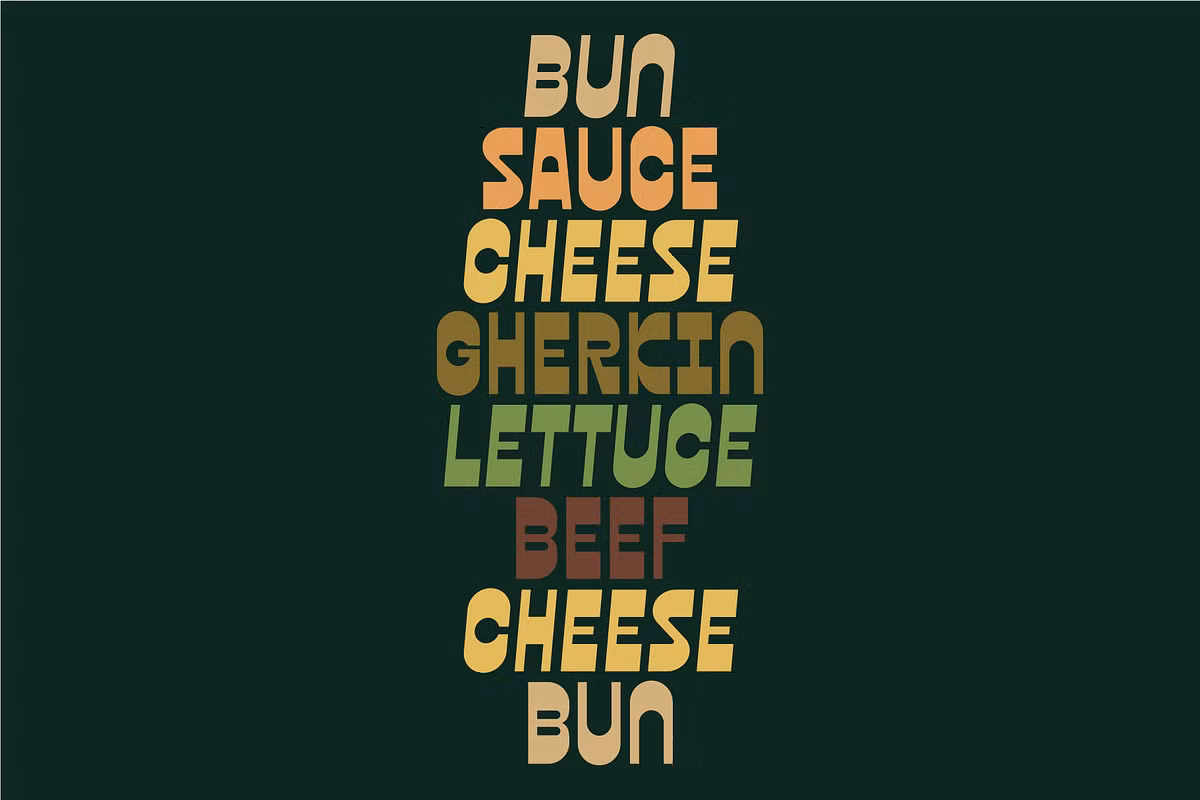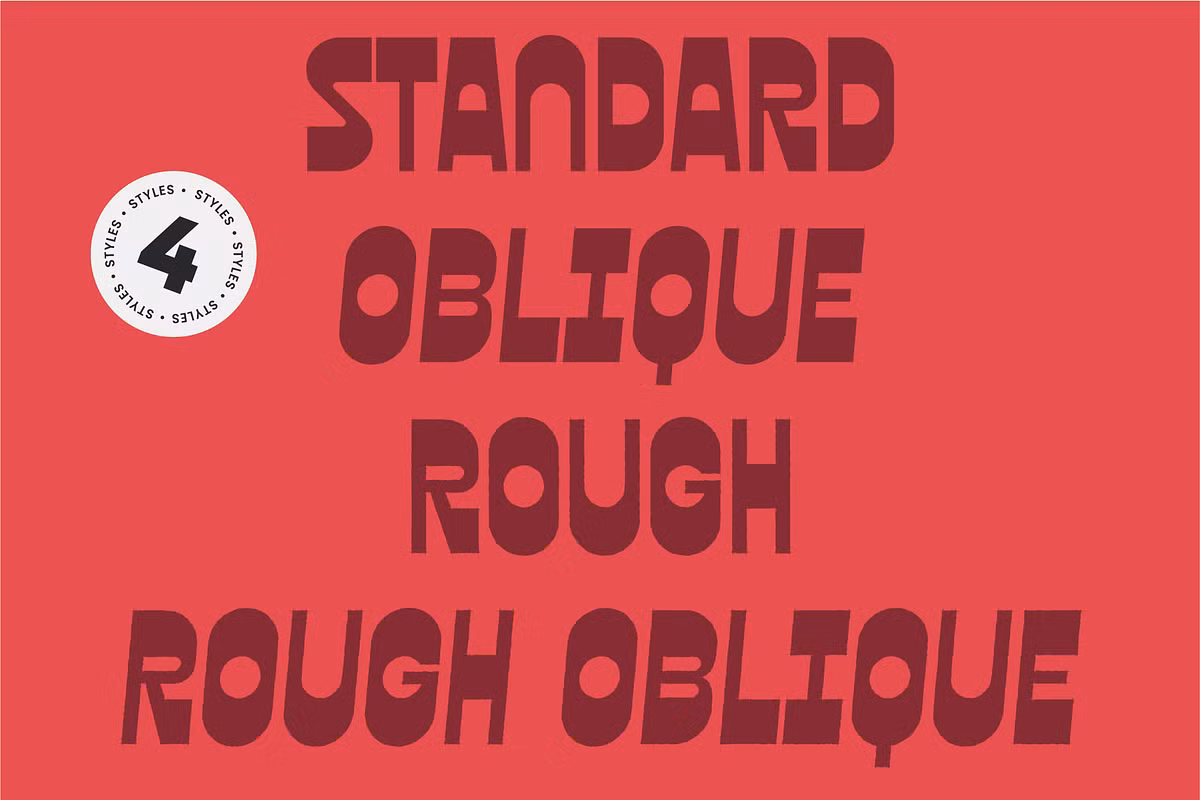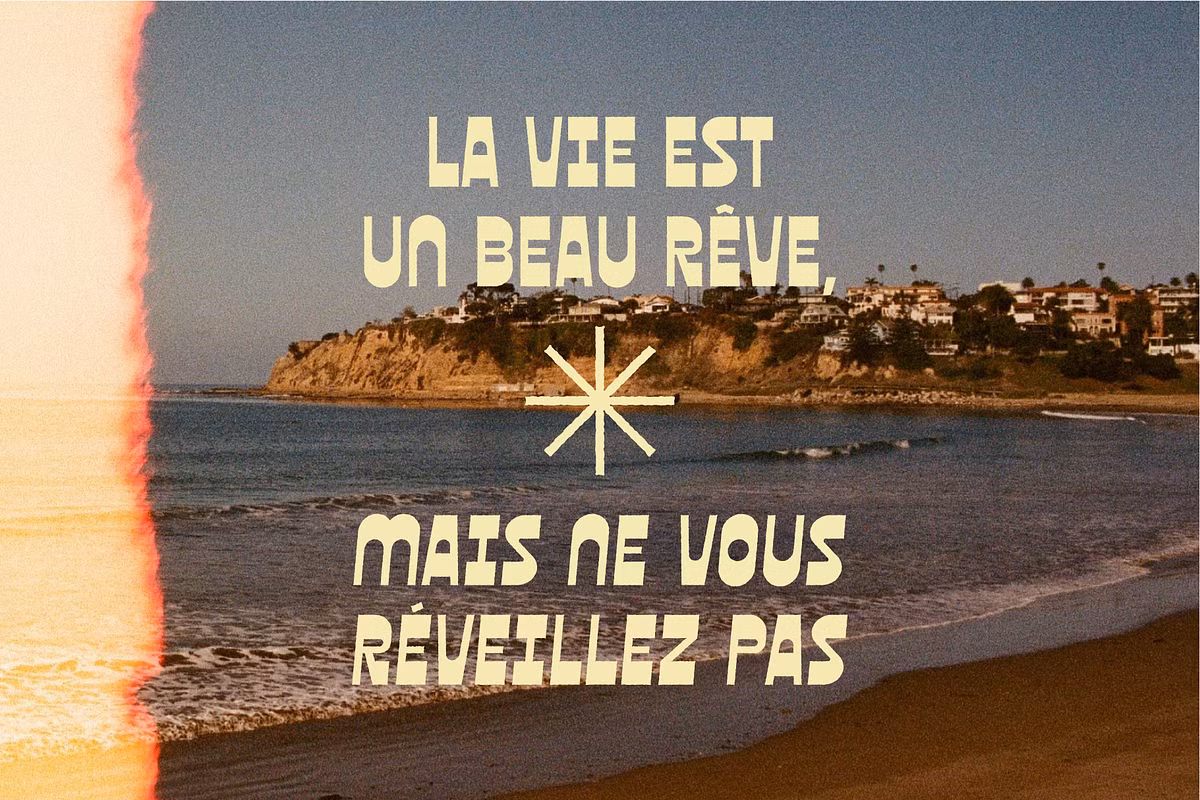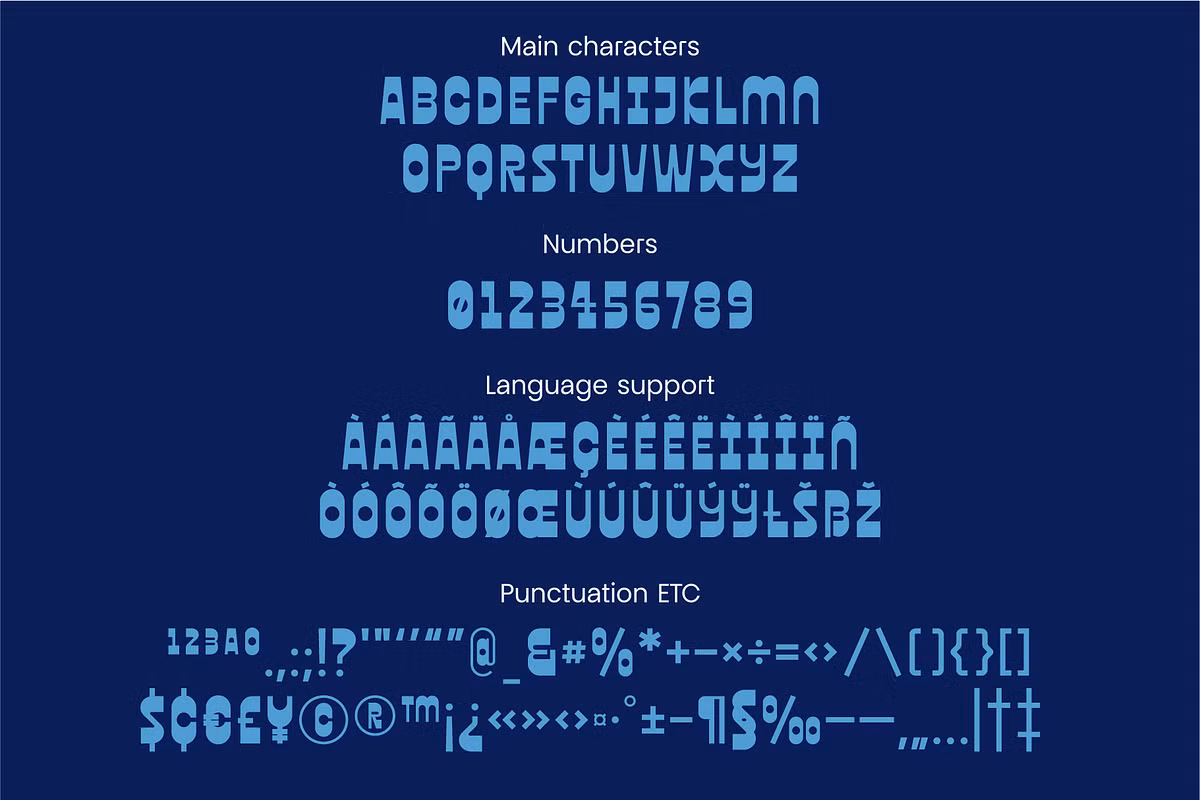
Queso: Fun Retro Display Font with Multiple Styles for Creative Designs
Queso is a really cool font that can add a lot of personality to your projects. It’s got a unique look that sets it apart from other fonts, with a reverse contrast design that makes it stand out. You get four different styles to choose from – regular, oblique, rough, and rough oblique – so you can pick the one that fits your project best.
Whether you’re creating a logo, a title for a magazine, or just want to make your emails more interesting, Queso is a great choice. It’s got a fun, retro vibe that’s still modern and fresh, making it perfect for adding a bit of flair to your designs. With Queso, you can give your projects a hip, trendy feel that’s sure to grab attention.
The way Queso looks is really old-school, like the kind of letters you’d see in old movies and stuff. It’s become super popular again lately. What’s cool about this font is that it’s got a fun twist on the usual way letters are made – the lines are thicker at the ends and thinner in the middle. This makes it look like it’s moving, which is really catchy.
You can use it for all sorts of things. There’s also a slanted version that adds a bit of excitement, and some rougher versions that look like they were drawn by hand, which can give your designs a more natural feel.
Character Sets
One of the standout features of Queso is its comprehensive character set. This font supports uppercase glyphs, allowing for bold statements in your designs. Additionally, it includes a full range of punctuation and numbers, making it a well-rounded choice for any project that requires diverse textual elements.
Queso is special because it can be used by people who speak many different languages. It works with languages like Afrikaans, Albanian, Catalan, Danish, Dutch, English, French, German, Italian, Norwegian, Portuguese, Spanish, Swedish, and Zulu.
Queso is a really useful font that can be used in lots of different ways, which makes it a must-have for designers. Here are a few examples of where you could use this fun, old-school font:
- Logo Design: Queso’s bold and distinctive style makes it an excellent choice for crafting unique logos that stand out in the marketplace.
- Magazine Headers: Queso can add some much-needed personality to a masthead, making it more interesting and eye-catching.
- Email Marketing Campaigns: Incorporating Queso into your email campaigns can grab attention and create a memorable visual identity.
- Posters and Flyers: Whether for events, promotions, or art shows, Queso can add a vibrant and energetic touch to printed materials.
- Social Media Graphics: Use Queso to create eye-catching graphics that will engage your audience on platforms like Instagram and Facebook.